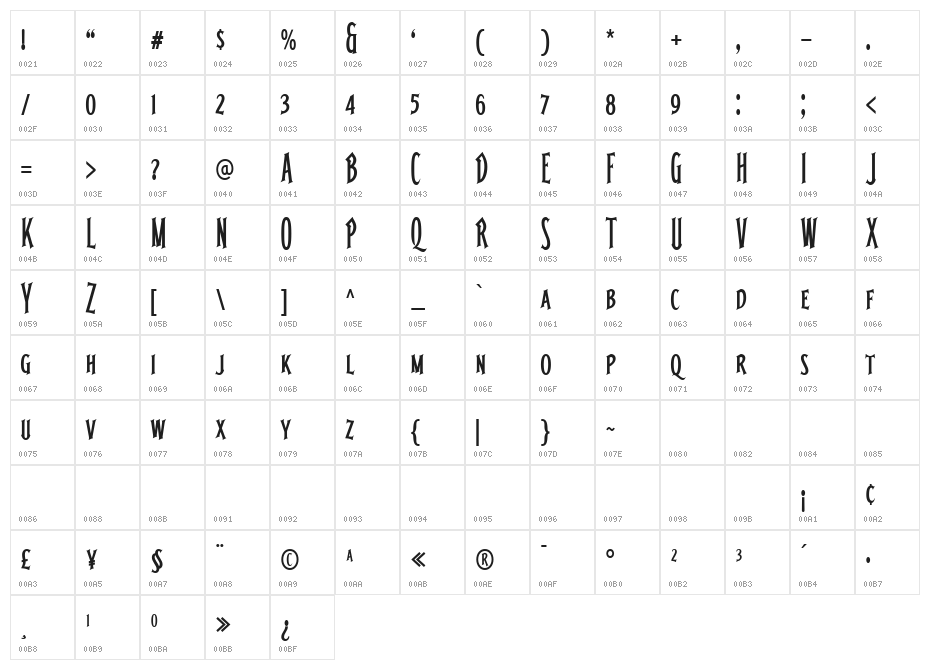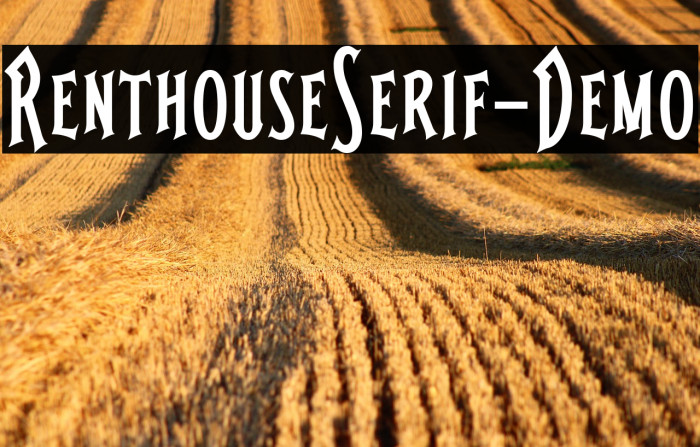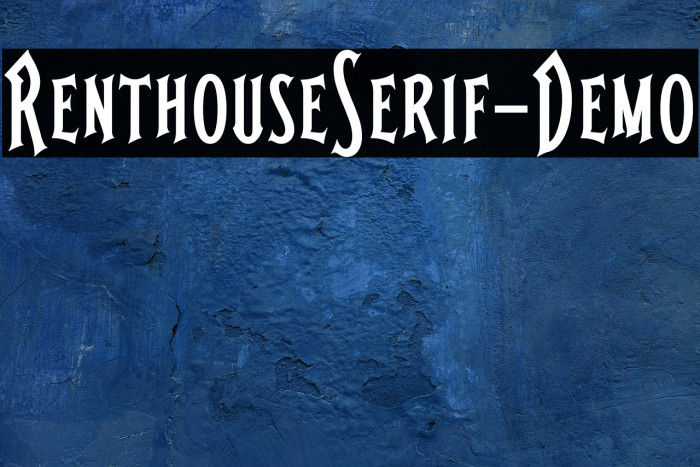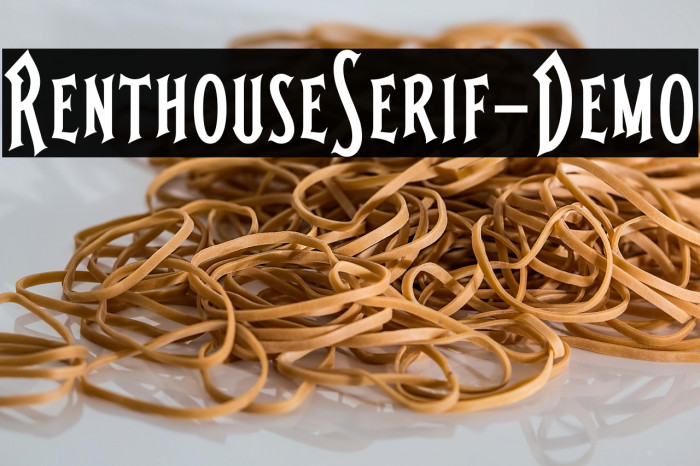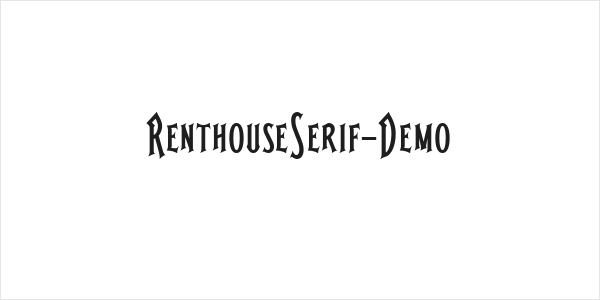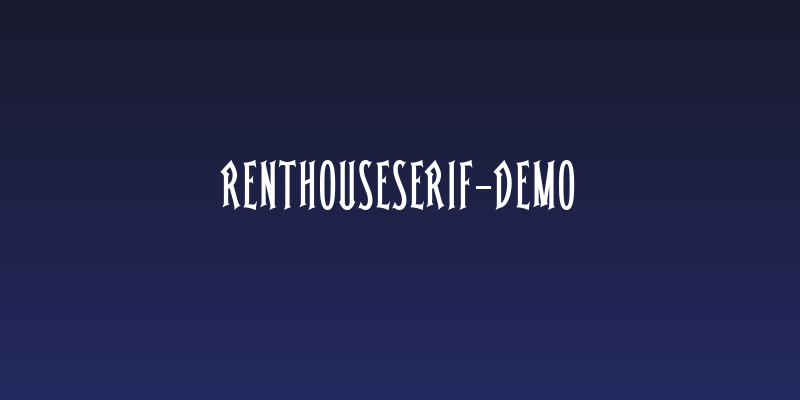
RenthouseSerif-Demo Font
RenthouseSerif-Demo Description
This font features a bold and dynamic style with sharp, angular serifs that give it a distinctive and commanding presence. The uppercase letters are tall and narrow, with a slight curvature that adds a touch of elegance. The lowercase letters maintain a consistent style, complementing the uppercase with their own unique flair. The numerals are clear and legible, matching the overall aesthetic of the font. Special characters are designed with the same attention to detail, ensuring a cohesive look across all glyphs. This font is ideal for creating impactful headlines and titles, where its boldness can truly shine.
| Proposed Projects | Ideal for branding, poster design, book covers, and any project requiring a strong, impactful typeface. |